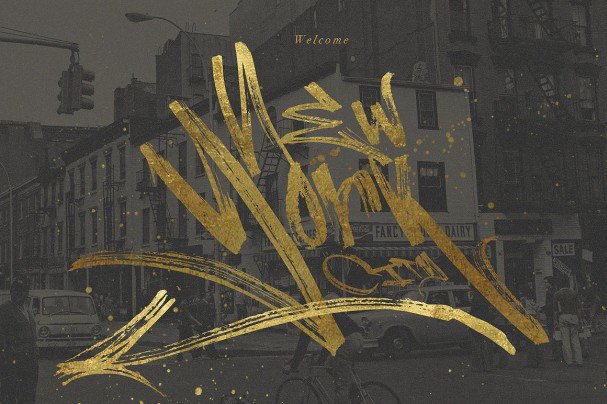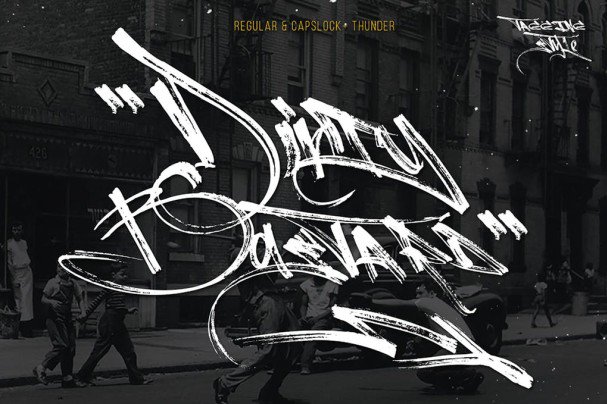
Burnts Maker Font
Proper right here is the Burnts Maker Font that is regarded for its pairing feature, this is a set off typeface this is just like the canter font and it’s far indexed in google fonts. With this font‚Äôs useful spacing and excellent device, that seems like bakery font you could without trouble creates any designs of your choice on the manner to provide gold-famous extremely good and legibility. It’s miles considered used for hundreds of applications in particular for signage and others lease alike. You may see that hundreds of pinnacle-notch elements that this font shape can present and it has masses of font weights available as nicely.
Burnts Maker Font Free This font problem an italic, hand-drawn, ambitious texture. Pinnacle-notch for any headline or titling abilities. This font is likewise seemed because of polya font for text. This font is a normal font with hundreds of many abilities and numbers of font weights to be had to offer in truth lose internal this.